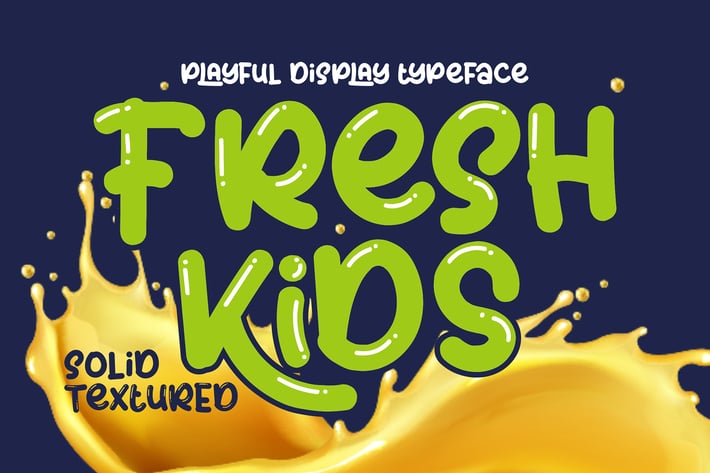
Fresh Kids - Fun Display Font
Fresh Kids is a fun and charming display font. Its simple and friendly style makes this design incredibly versatile, fitting a wide variety of creative ideas.
Comes in two awesome styles:
- Fresh Kids Solid
- Fresh Kids Textured